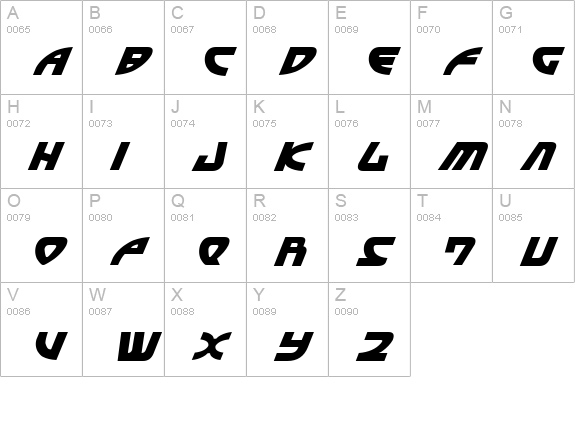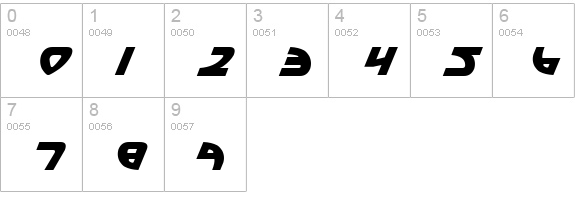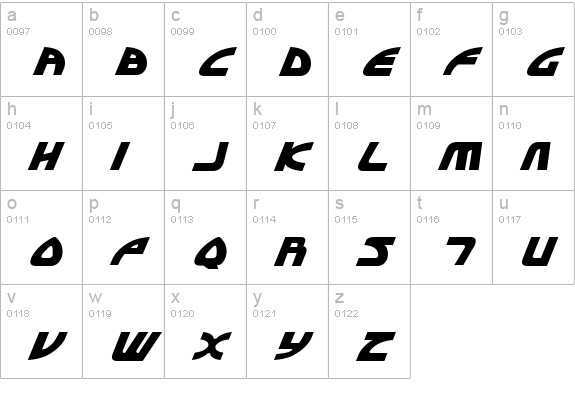
Officer Domenic Italic Font Details
Officer Domenic Italic is a distinctive, italic variant in the Officer typeface family \xE2\x80\x94 well suited to design and typography projects.
Officer Domenic Italic font is a stylish and sophisticated typeface that exudes professionalism and authority. Its sleek and elegant design makes it perfect for a wide range of applications, from corporate branding to editorial design. The italicized letterforms add a touch of sophistication and flair to any project, making it stand out from the crowd. One of the best things about Officer Domenic Italic font is that it is free to download at FontsMarket.com. This means that you can easily access this high-quality font without having to worry about any additional costs. Whether you are a graphic designer, a business owner, or a student working on a project, Officer Domenic Italic font is a versatile and reliable choice that will elevate your designs to the next level. With its timeless appeal and professional aesthetic, Officer Domenic Italic font is sure to become a staple in your font library. Download it today and add a touch of sophistication to your next project!